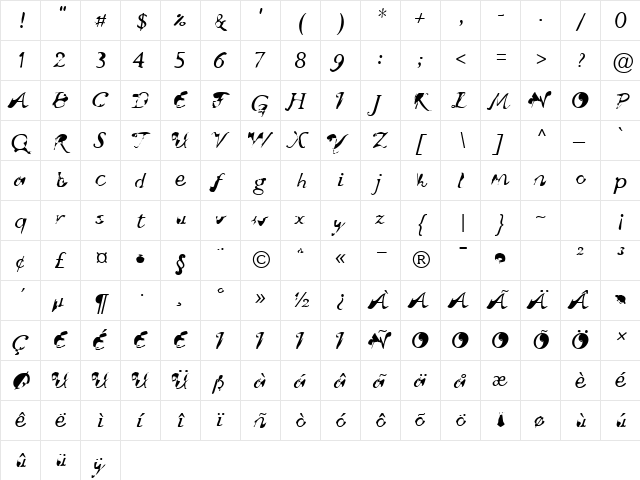
BlendfontsWuestling Regular
BlendfontsWuestling is a composed and adaptable typeface that performs quietly and consistently across a wide range of design contexts.